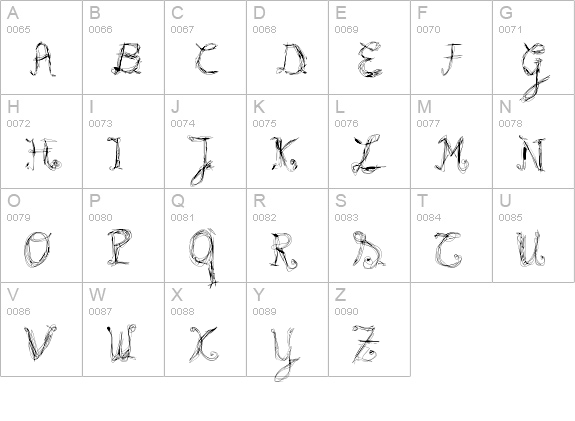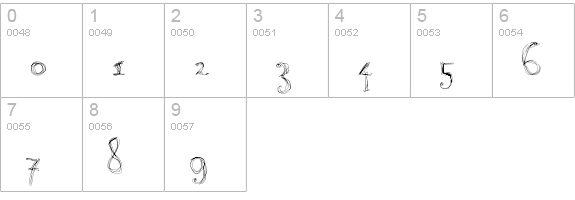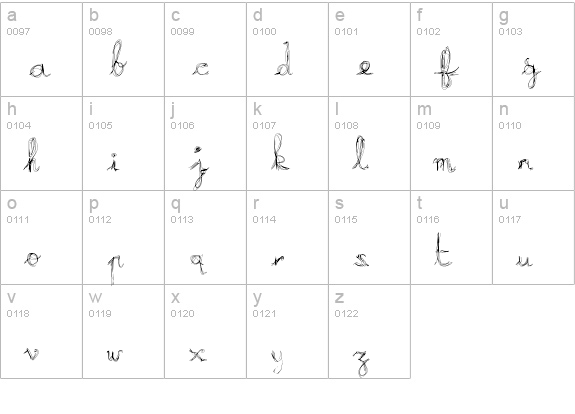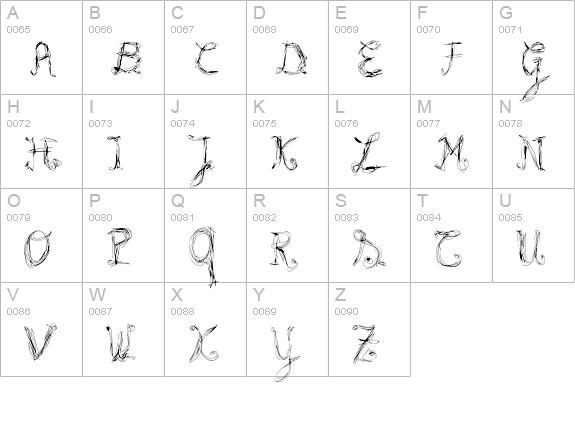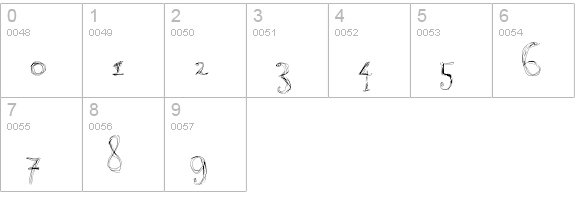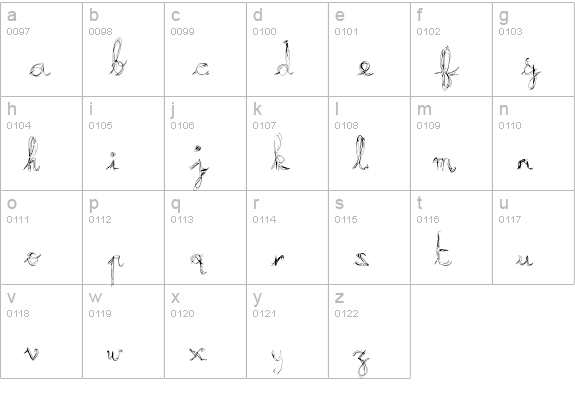
Burning Light is a refined, elegant variant in the Burning typeface family \xE2\x80\x94 well suited to elegant body text, refined sub-headings, and luxury branding.
Introducing the exquisite Burning Light font, a captivating typeface designed to illuminate your projects with its elegant and modern appeal. This font exudes a sense of warmth and sophistication, making it perfect for a wide range of design applications, from branding to editorial design and beyond. Burning Light features sleek lines and stylish curves that give it a timeless and versatile quality. Its delicate yet bold letterforms make a statement while maintaining a sense of grace and balance. Whether you are looking to add a touch of class to your designs or create a sense of modern sophistication, Burning Light is sure to impress. Best of all, this stunning font is available for free download at FontsMarket.com. Take advantage of this incredible opportunity to enhance your projects with the beauty and refinement of Burning Light. Download now and let your creativity shine with this exceptional font.